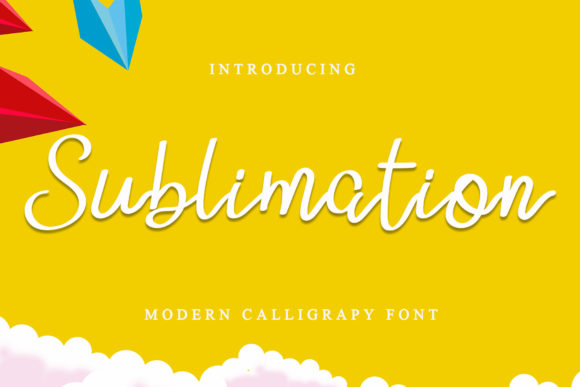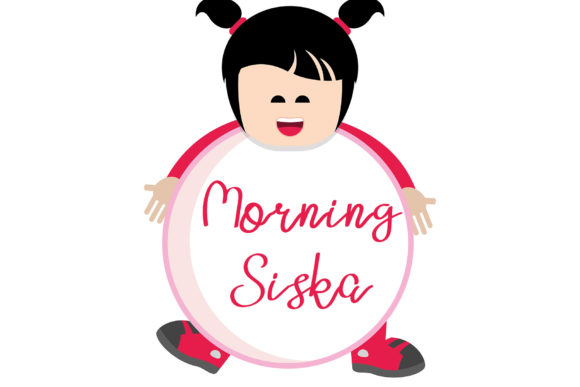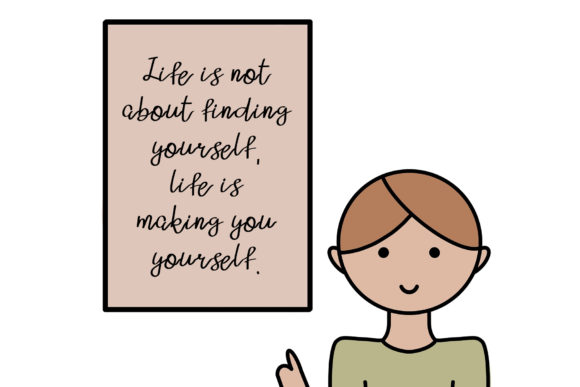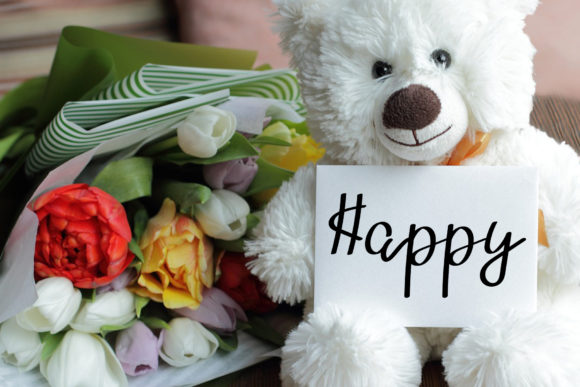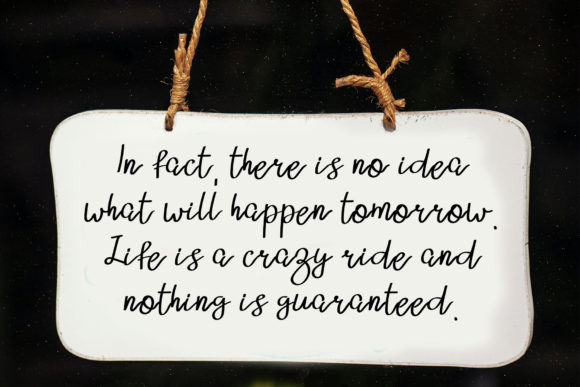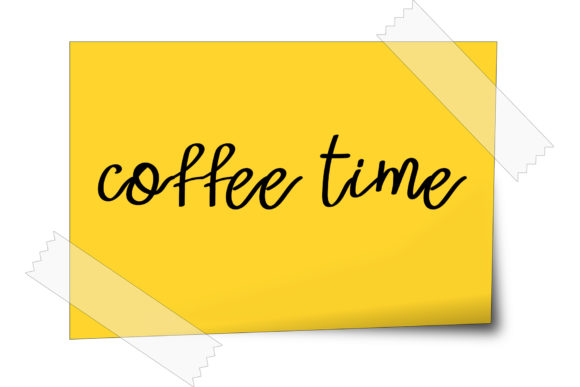
Sublimation Font
About Sublimation Font
Sublimation is a lovely and timeless handwritten font. It is the best choice for creating eye catching logos, branding and quotes. Every letter has a unique and beautiful touch, which will make your design come alive!